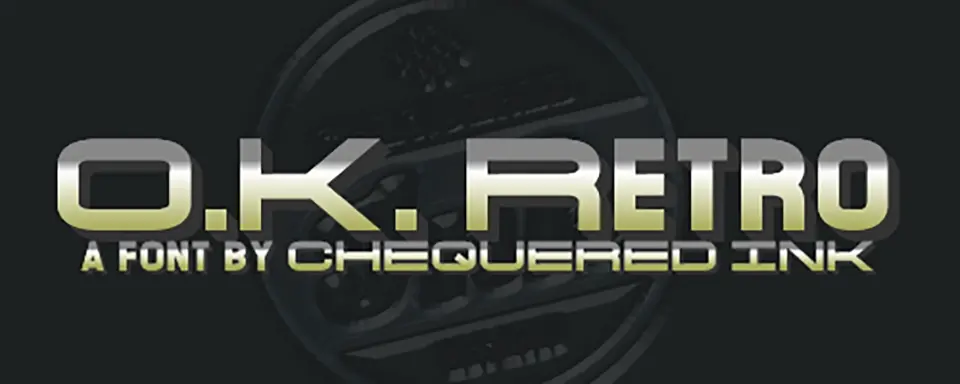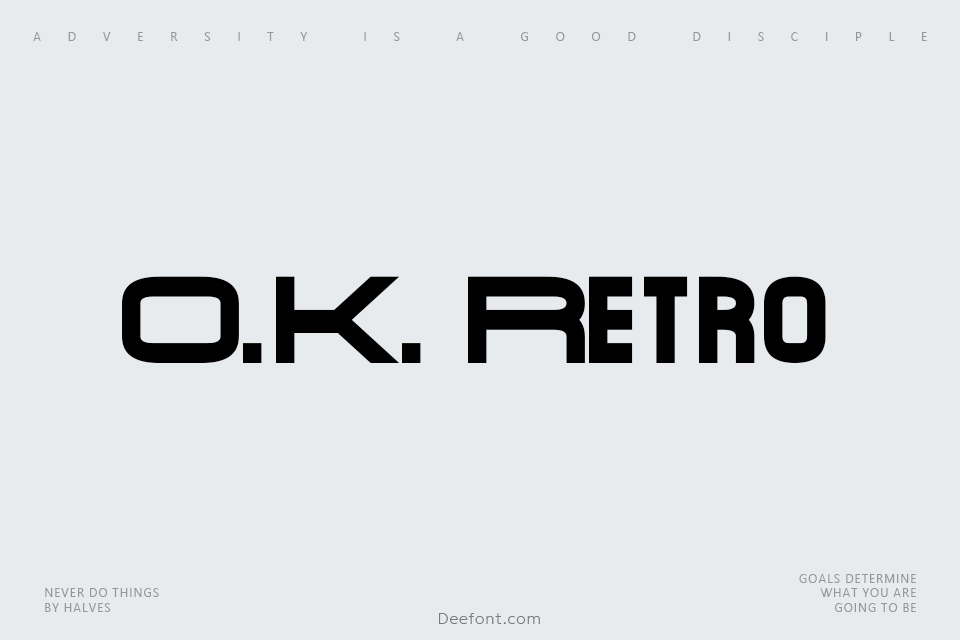
O.K. Retro Font
O.K. Retro is a distinctive retro-inspired display font designed by Chequered Ink that brings vintage aesthetics to modern projects. With its bold, geometric letterforms and nostalgic character, this font excels at creating eye-catching headlines and creative compositions. The typeface features 193 carefully crafted glyphs and supports multiple languages, making it versatile for diverse design applications. Its clean, structured design makes it ideal for branding, poster design, and any project seeking a charming retro appeal.